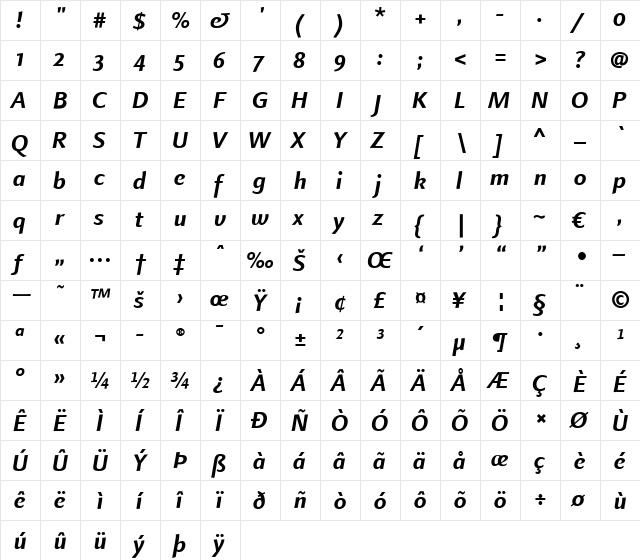
LTFinnegan OsF Regular Bold Italic
| Designer | Juergen Weltin |
Design Context for LTFinnegan OsF Regular Typeface
LTFinnegan OsF Regular is a composed and adaptable typeface that performs quietly and consistently across a wide range of design contexts. The dynamic lean of this cut emphasises speed and emphasis in any layout. Its bold stroke weight gives it real presence on the page.